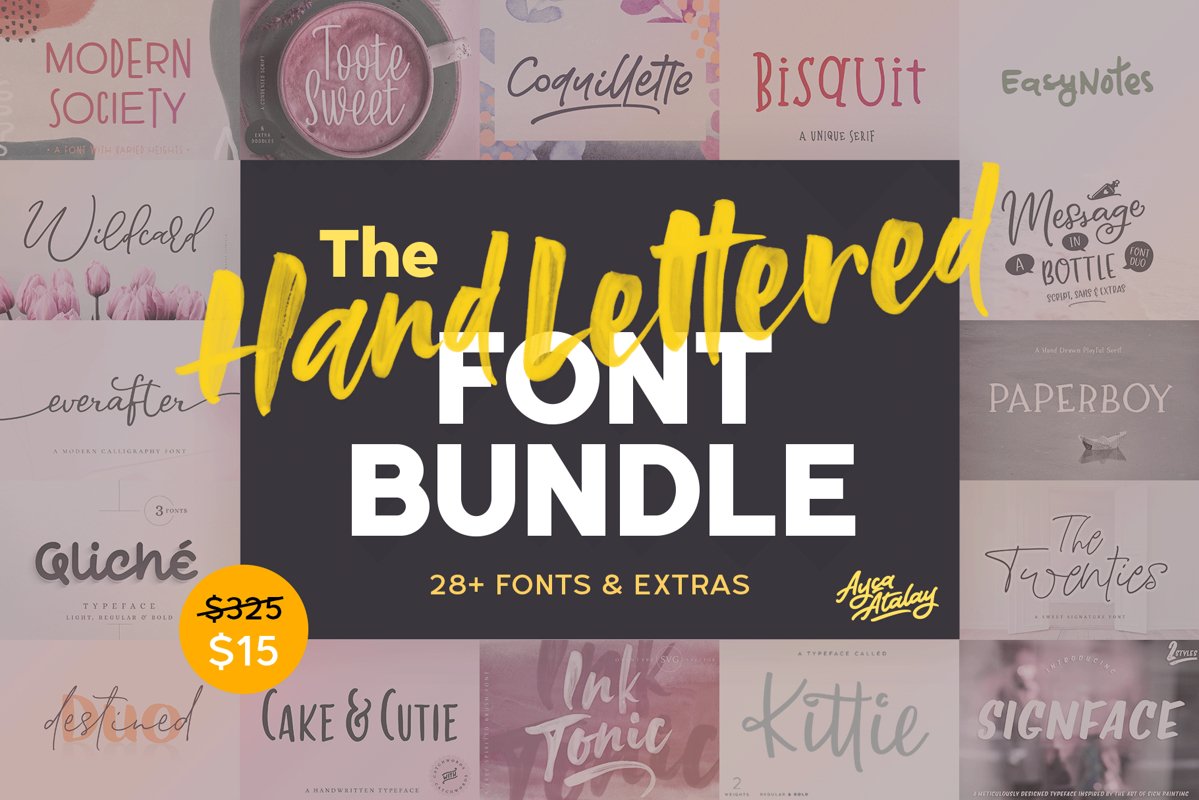
The Hand Lettered Font Bundle
The Hand Lettered Font Bundle is a huge collection of beautiful hand lettered fonts, flourishes, doodles and swashes that will up-level your design layouts to new standards.
• Over 28 carefully crafted fonts
• Huge variety of font styles - serif, sans serif, script, brush, SVG, quirky, modern calligraphy etc. -
• All fonts include accented characters